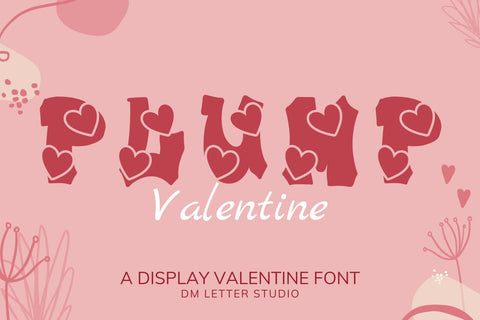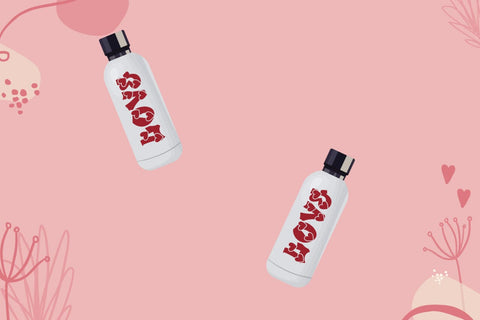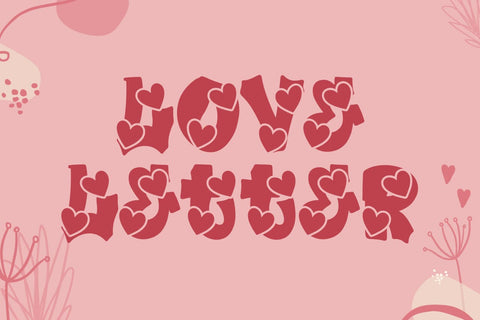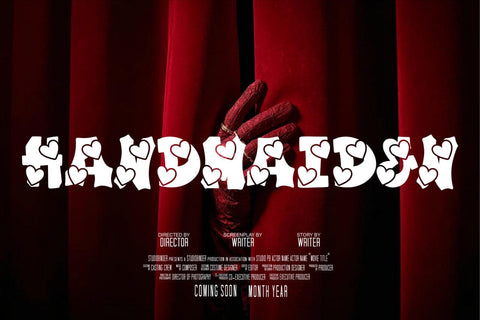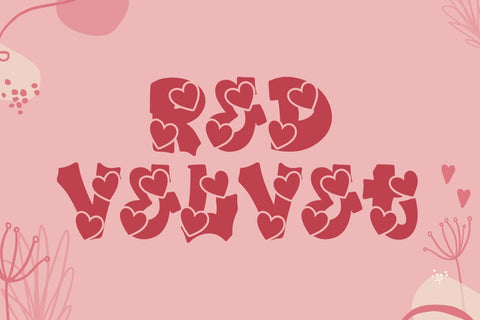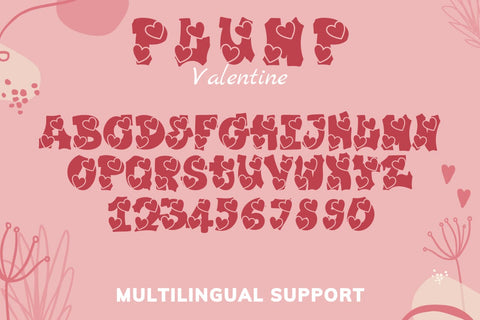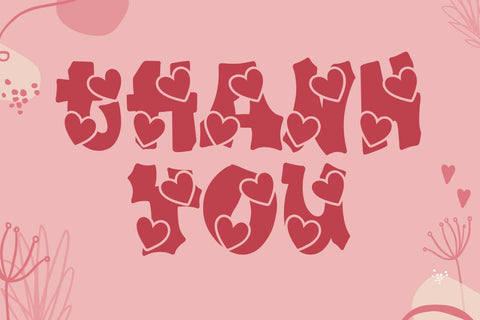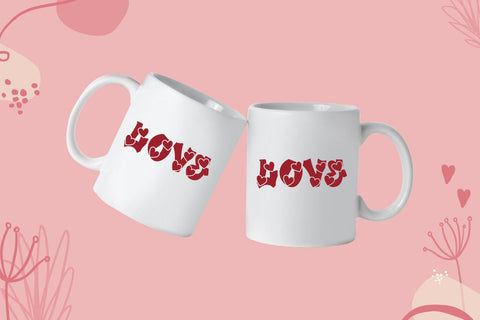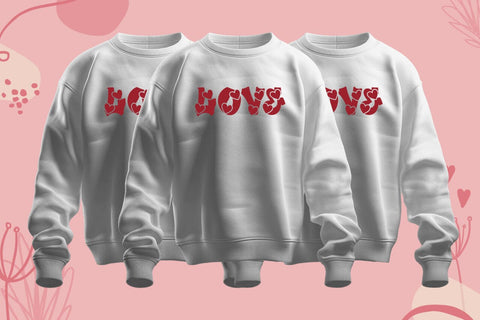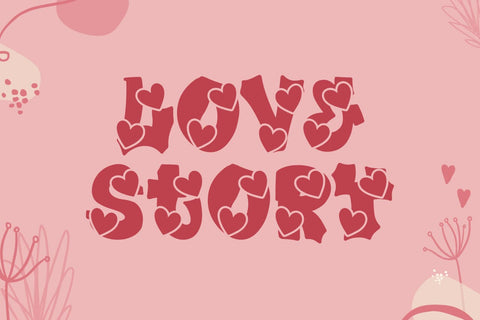
Plump Valentine Font
Meet Plump Valentine Font
Plump Valentine Font brings cute, bubbly charm to love notes, tees, stickers, and gifts. Rounded letters feel soft and joyful, while wide counters keep every word clear on print and screen. Use it for Valentine cards, proposal boxes, candy labels, classroom parties, and romantic social posts. Because spacing is even and curves stay smooth, your designs look sweet at any size.
Why creators love this Valentine font
First, it radiates warmth. Next, it pairs easily with simple sans and light scripts, so layouts come together fast. Then it cuts cleanly for Cricut and Silhouette, which helps you batch projects without fuss. As a result, you can build full collections for couples, weddings, and seasonal drops with one friendly typeface.
Ready for cards, shirts, and merch
Plump Valentine in action
Create greeting cards with playful titles like “Be Mine” or “Love You Lots.” Add couple tees, mug sets, keychains, and gift tags. For Instagram, stack short phrases such as “Sweet on You,” “Heart Day,” and “Hug Ticket.” Because letterforms are bold and tidy, layered shadows and two-color offsets are easy to build.
Design tips for lovable results
Keep headlines short and chunky. Pair with a neat sans for dates, prices, and captions. Try color stories like rose and cream, cherry and blush, or lavender and cocoa. Add a soft shadow or thick outline to lift words over photos. Finally, export at 300 DPI for print and 2x size for web to keep edges smooth.